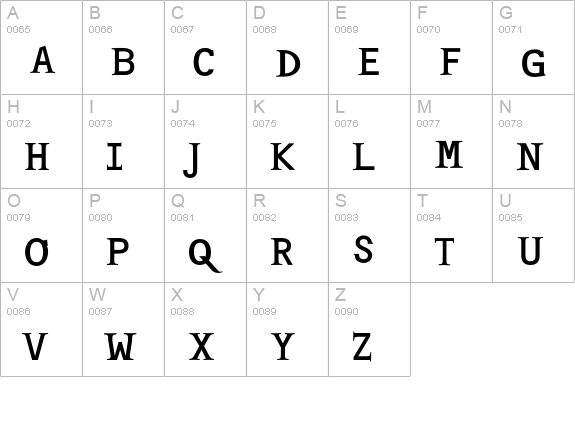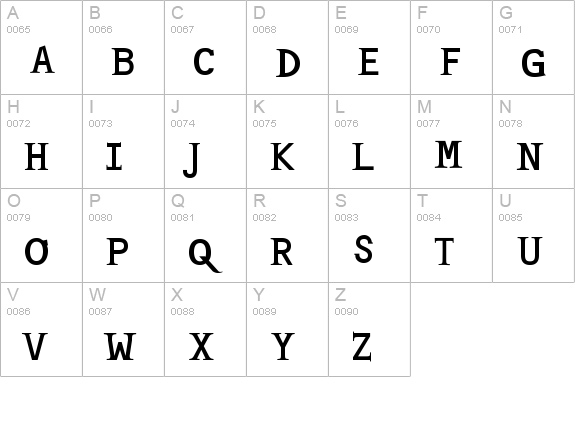
TemperanceRG Font Details
TemperanceRG font is a beautifully crafted typeface that exudes elegance and sophistication. Its timeless appeal makes it perfect for a wide range of creative projects, from branding and logo design to editorial layouts and invitations. With its clean lines and delicate curves, TemperanceRG font brings a sense of balance and harmony to any design. What sets TemperanceRG font apart is not only its stunning aesthetics, but also its accessibility. This font is available for free download at FontsMarket.com, allowing designers and creatives to easily incorporate it into their work without breaking the bank. Whether you're a professional designer or a hobbyist, this font gives you the opportunity to elevate your projects without any cost constraints. The versatility of TemperanceRG font is truly remarkable. It works well across various mediums, from print to digital, and it can be used in both large headlines and small body text. Its legibility is exceptional, ensuring that your message gets across clearly and effectively. With TemperanceRG font, you have the freedom to explore your creativity and express your unique style. Its wide range of weights and styles give you the flexibility to experiment and find the perfect fit for your design needs. Whether you're aiming for a classic and refined look or a modern and edgy vibe, this font has got you covered. Embrace the beauty of TemperanceRG font and let it elevate your designs to new heights. Download it for free at FontsMarket.com and unlock a world of possibilities. With this font, your projects will truly stand out and make a lasting impression.